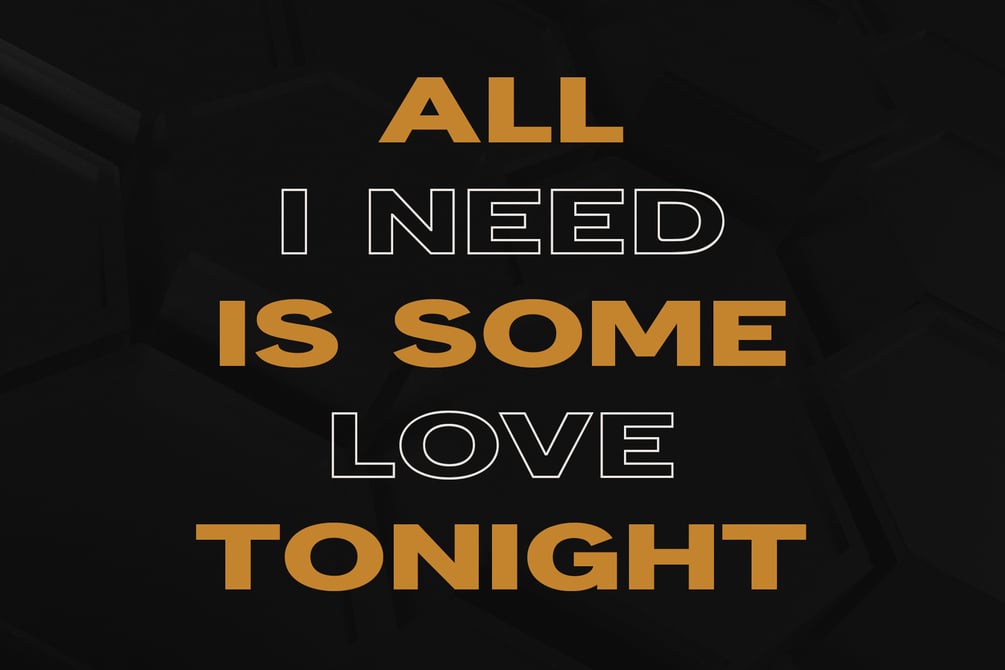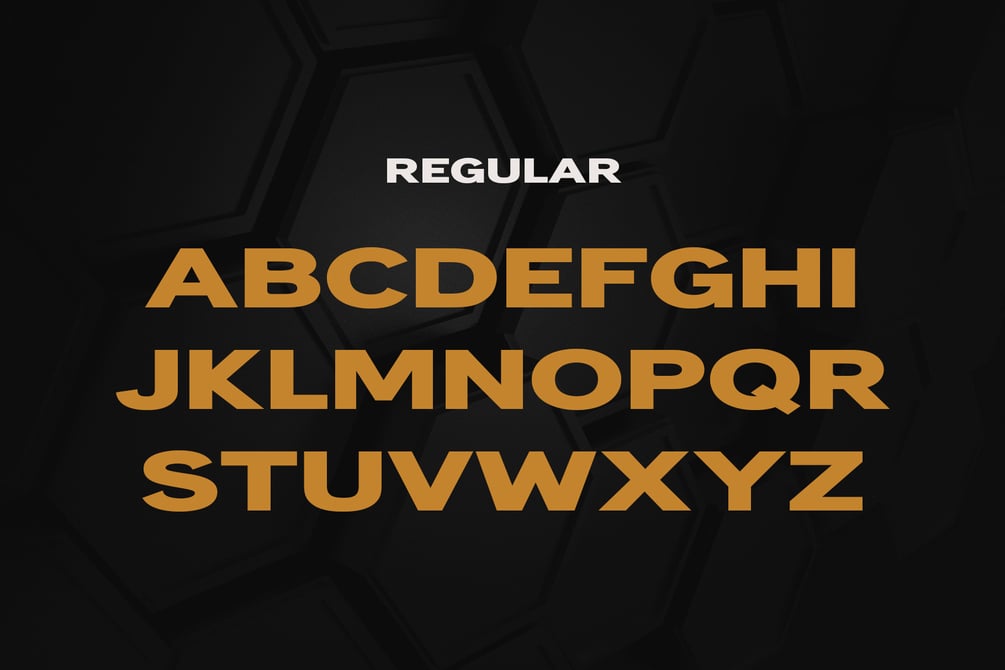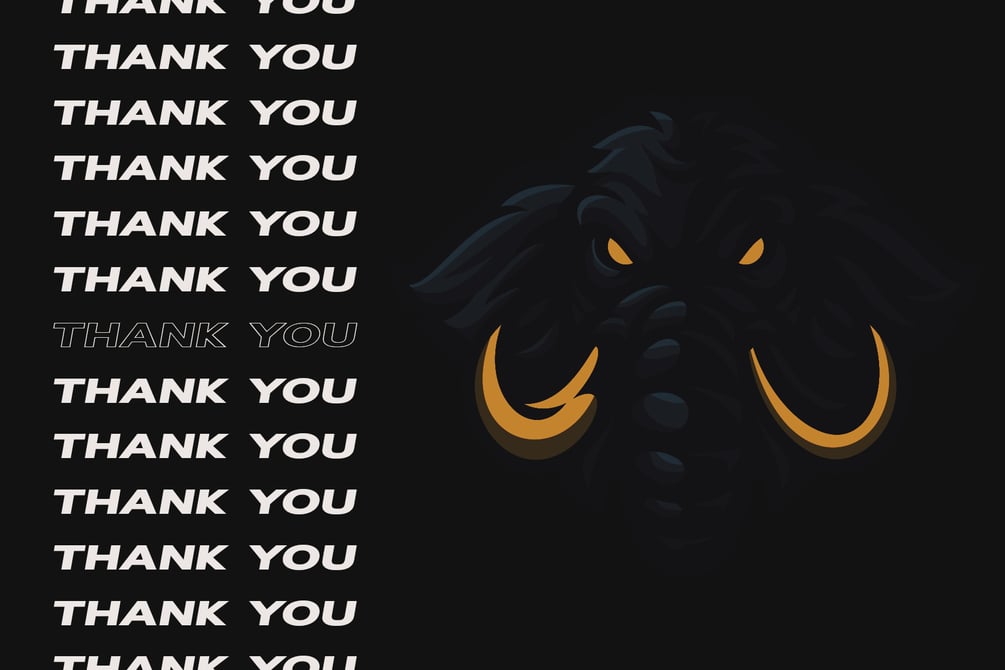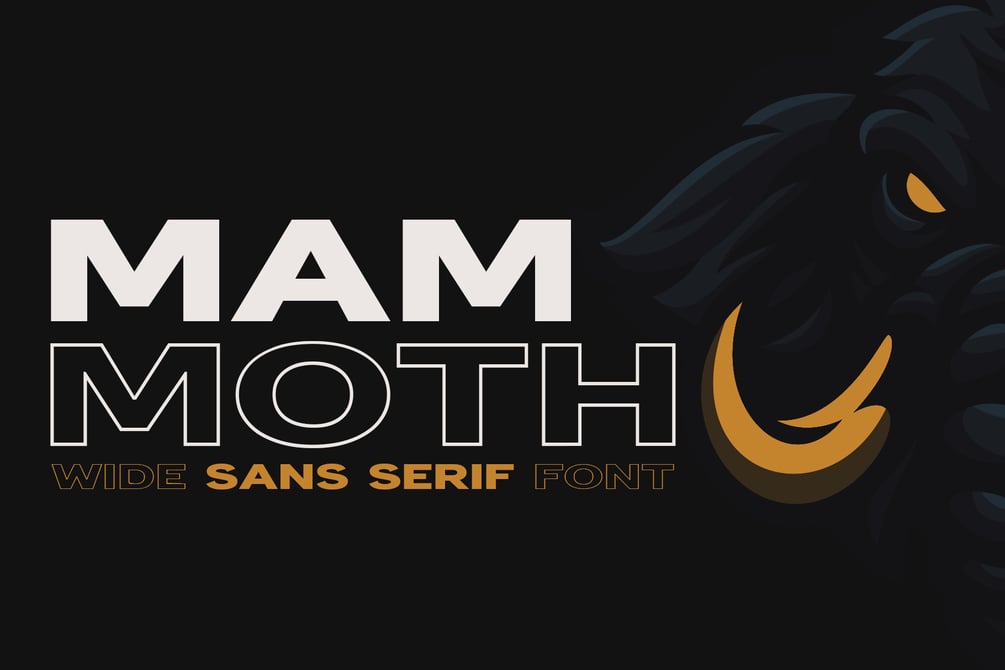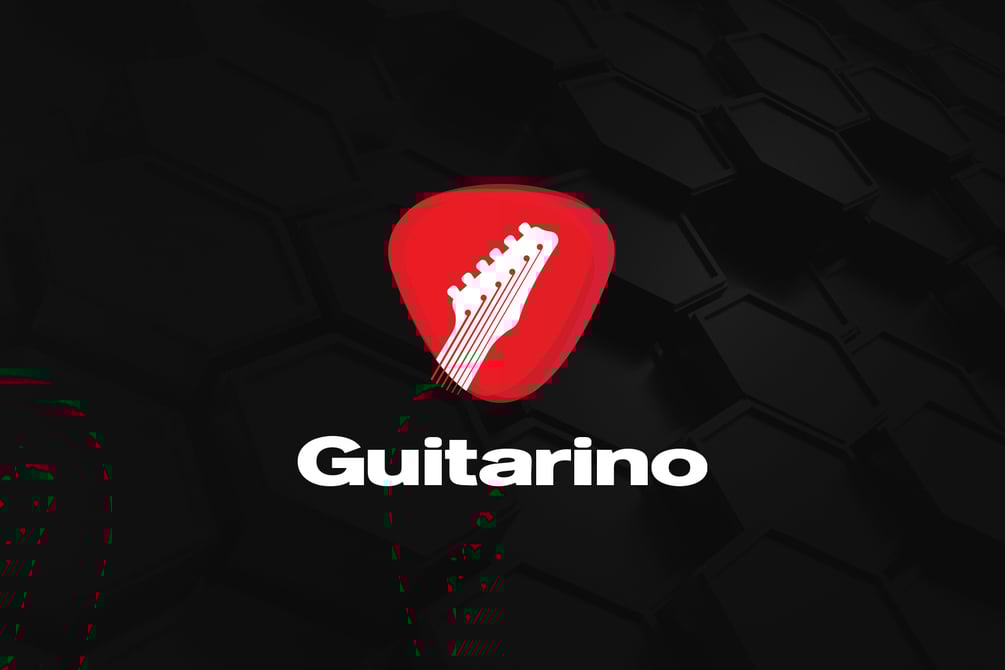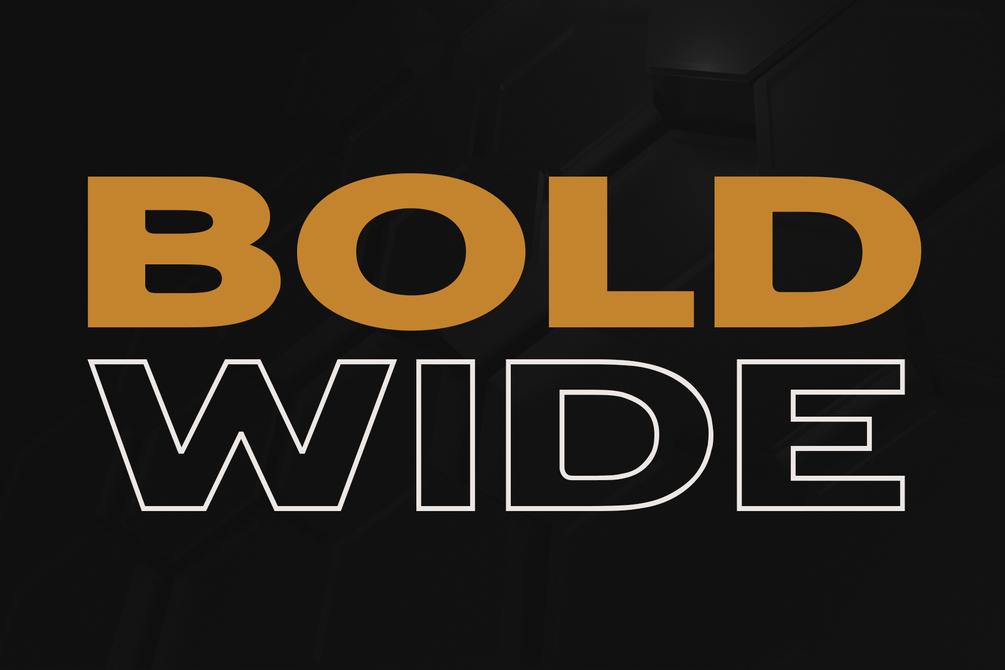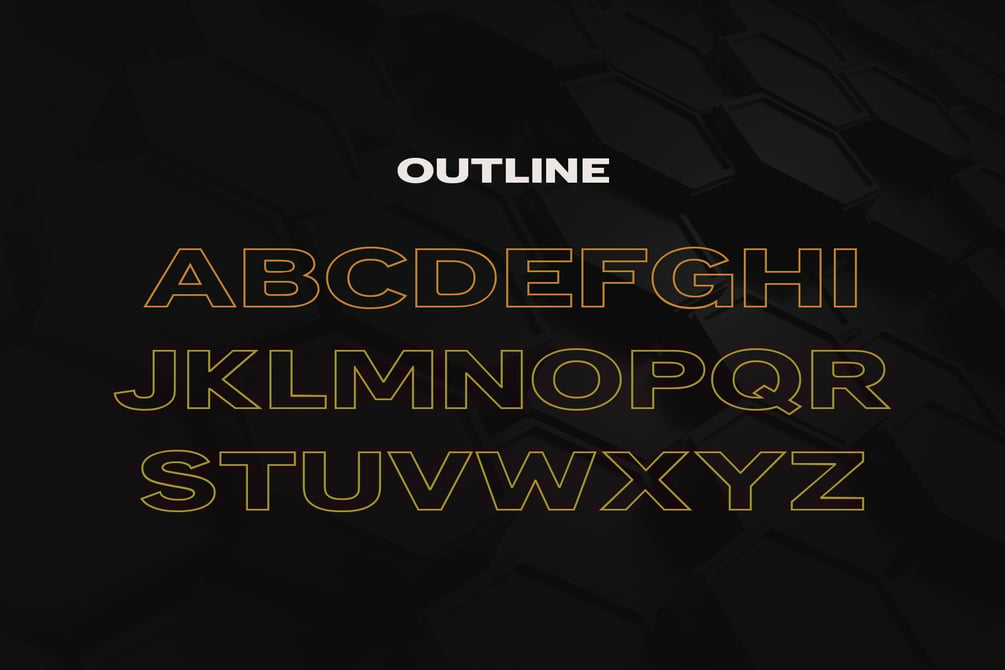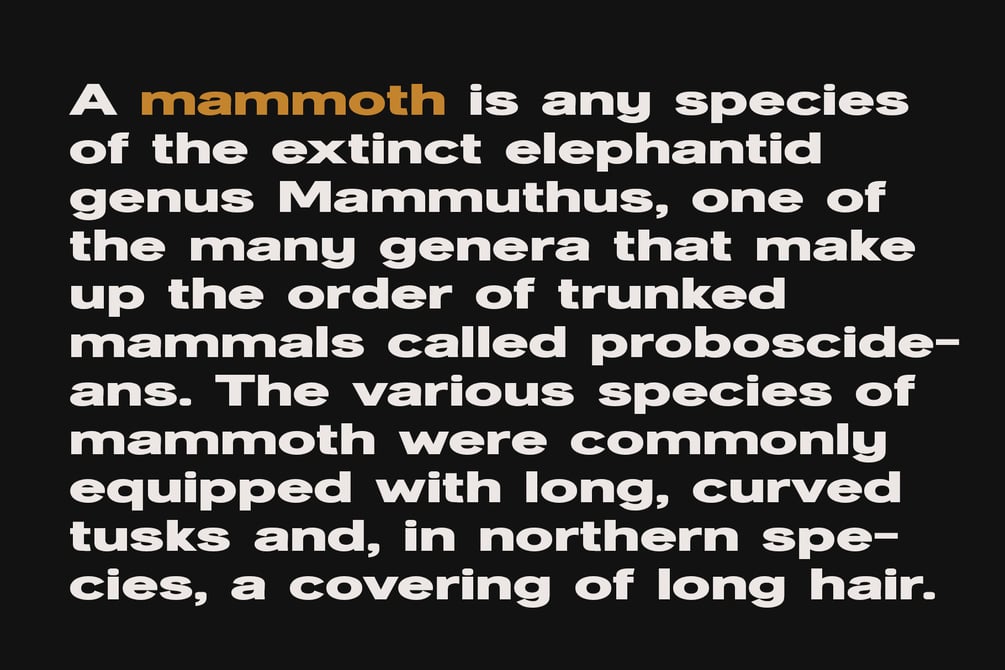
Mammoth - Wide & Bold
Mammoth is a wide sans serif typeface ready to push the boundaries in your designs. Thanks to its modern look you can use it for any project that requires a bold, clear statement.
This download includes regular and outline versions as well as lowercase letters for each. You can mix and match the outline and regular version to come up with unique designs.